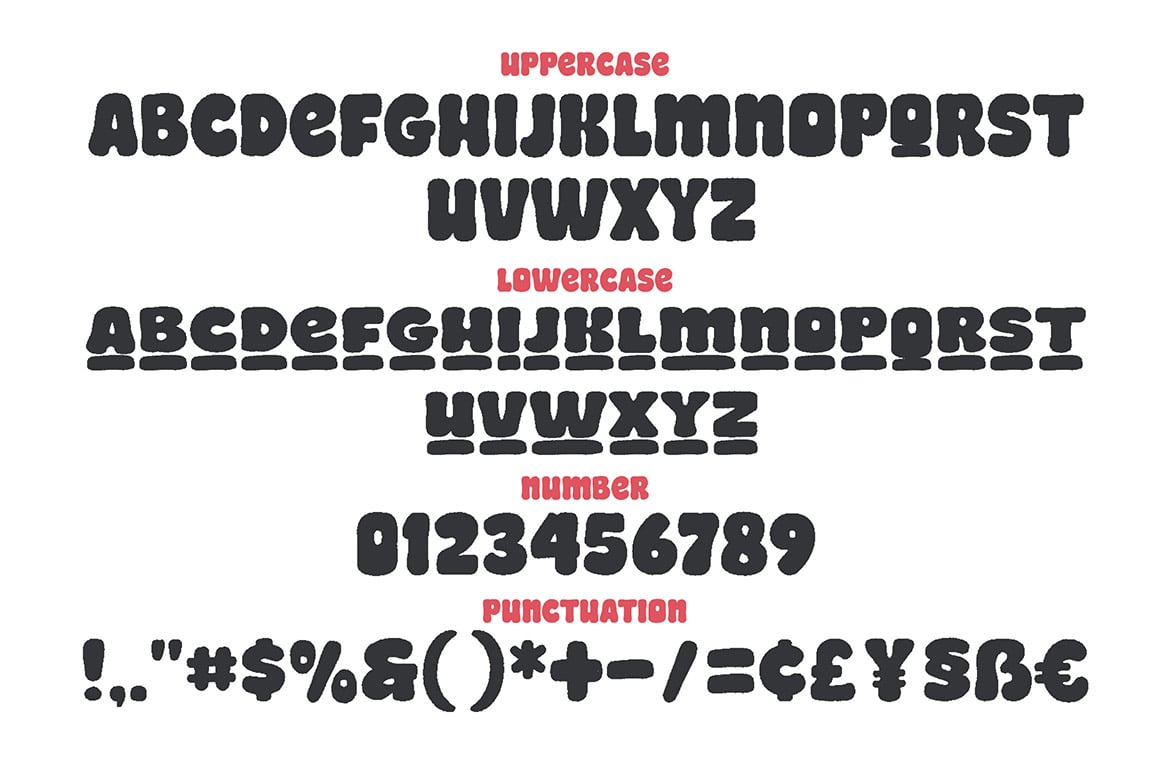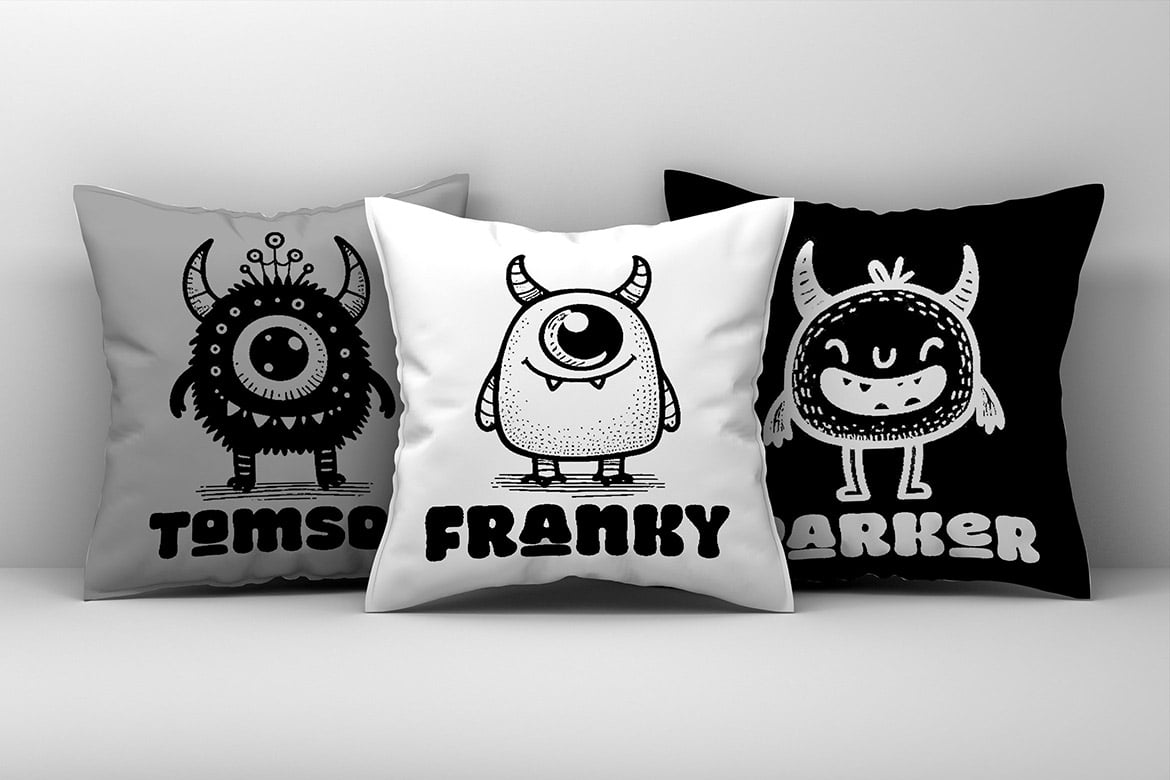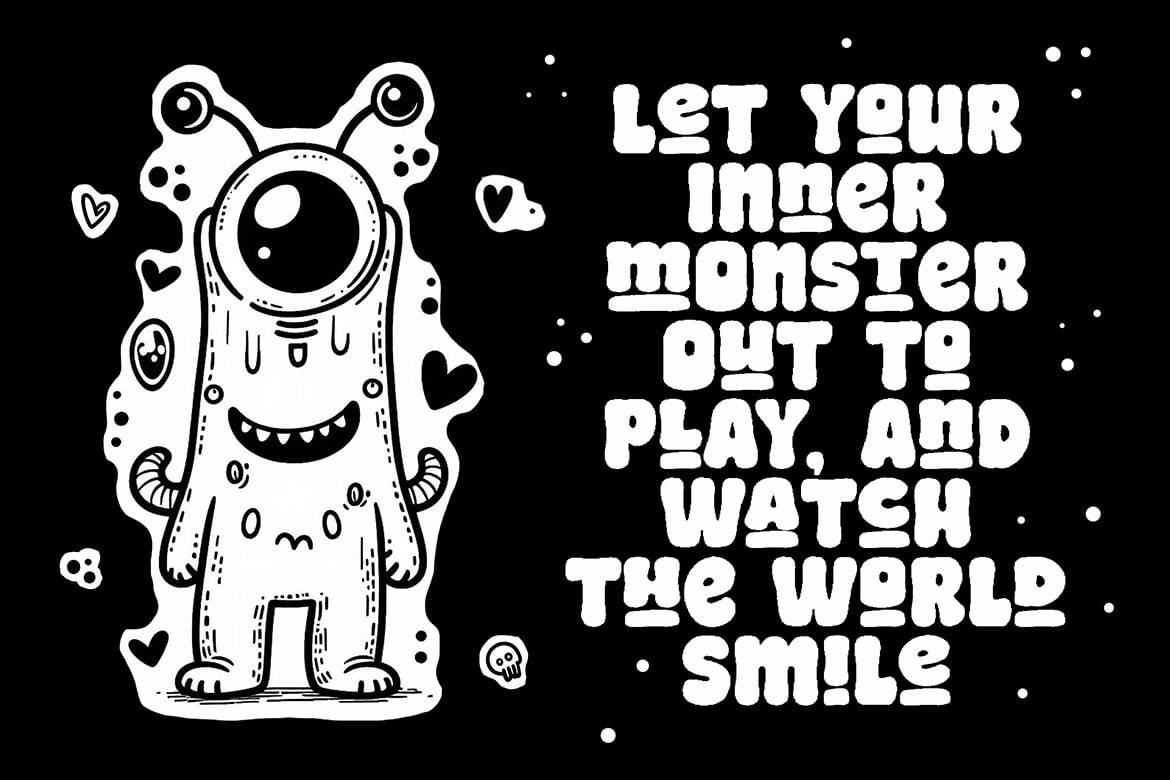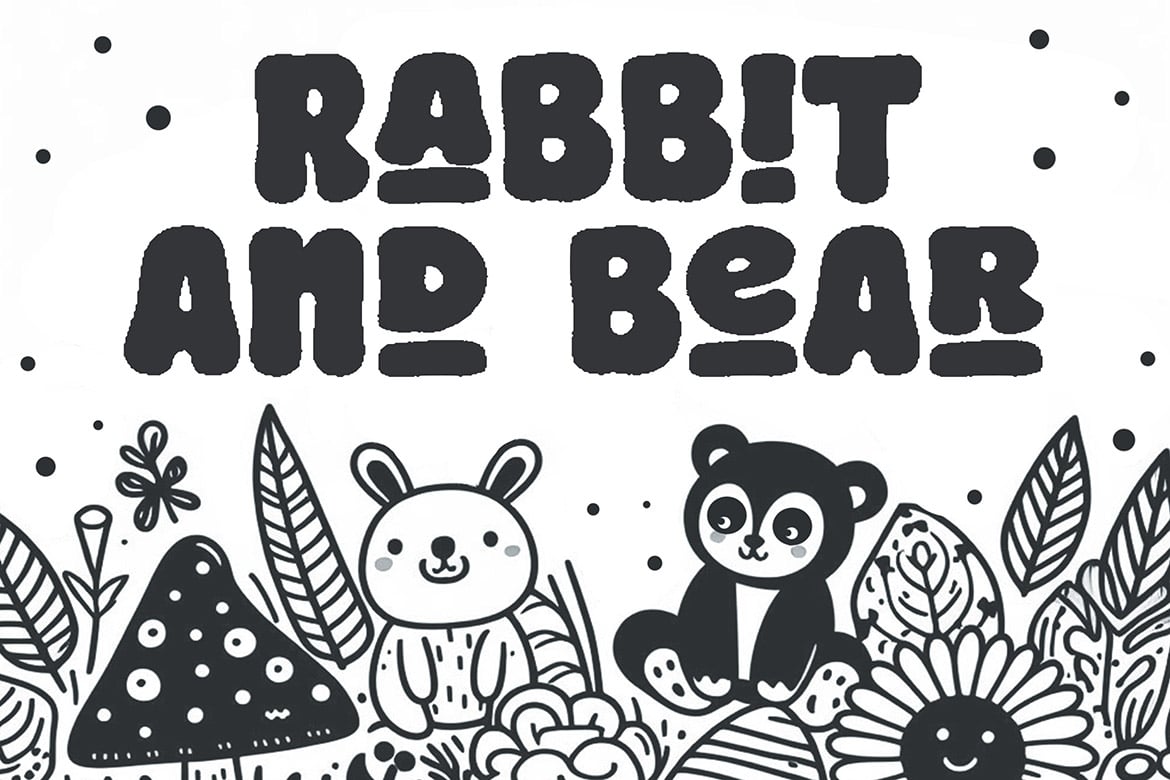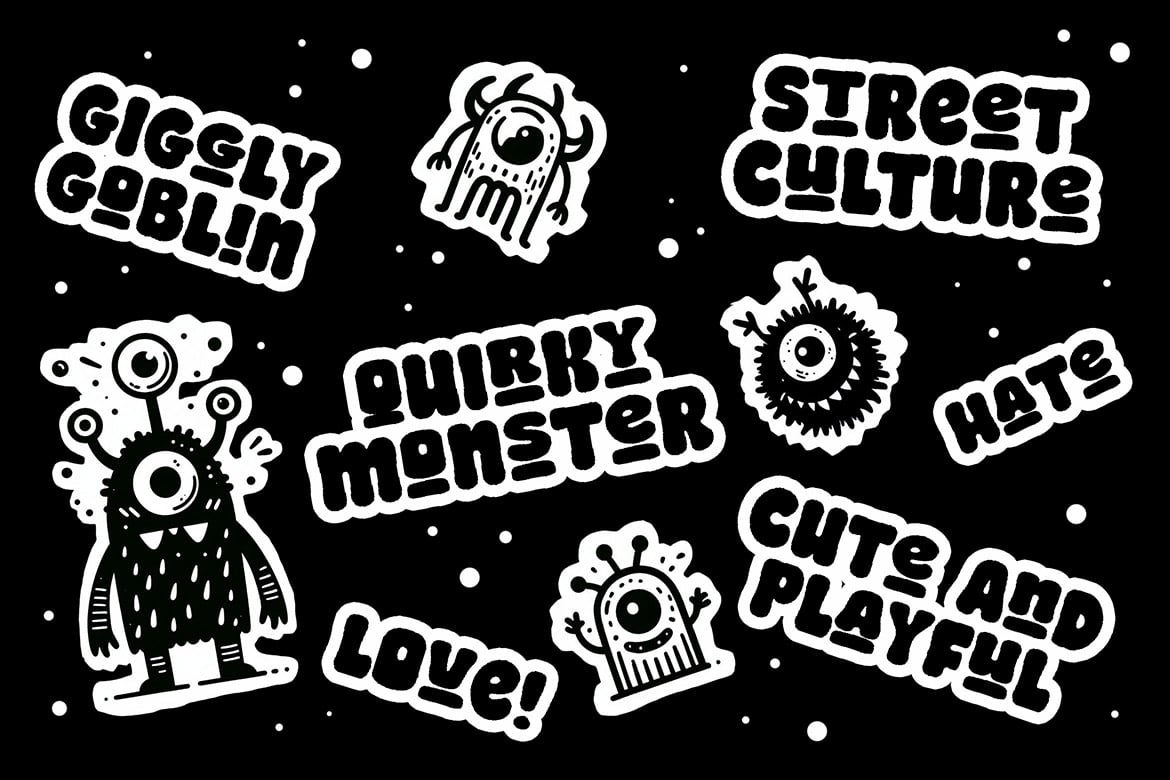
Doodle Marker – a Playful Modern Font
“Doodle Marker” is a font that brings a touch of whimsy, modernity, and energy, creating an atmosphere filled with joy. Inspired by the strokes of a marker, each letter exudes an expressive and creative hand-drawn texture.
Specially crafted to cater to those in search of a unique marker style, “Doodle Marker” offers the ability to create designs that are lively and spirited. Each letter feels infused with the spontaneity of artistic energy, producing a look that is both fun and captivating.
This font is suitable for a variety of graphic design projects, ranging from posters and greeting cards to social media content. The uniqueness of “Doodle Marker” not only lies in its simple design but also in its ability to capture the essence of joy and cheerfulness through relaxed and playful forms.
With “Doodle Marker,” you are not just getting a font; you are acquiring a piece of art that can add a personal touch and exuberance to every design endeavor.